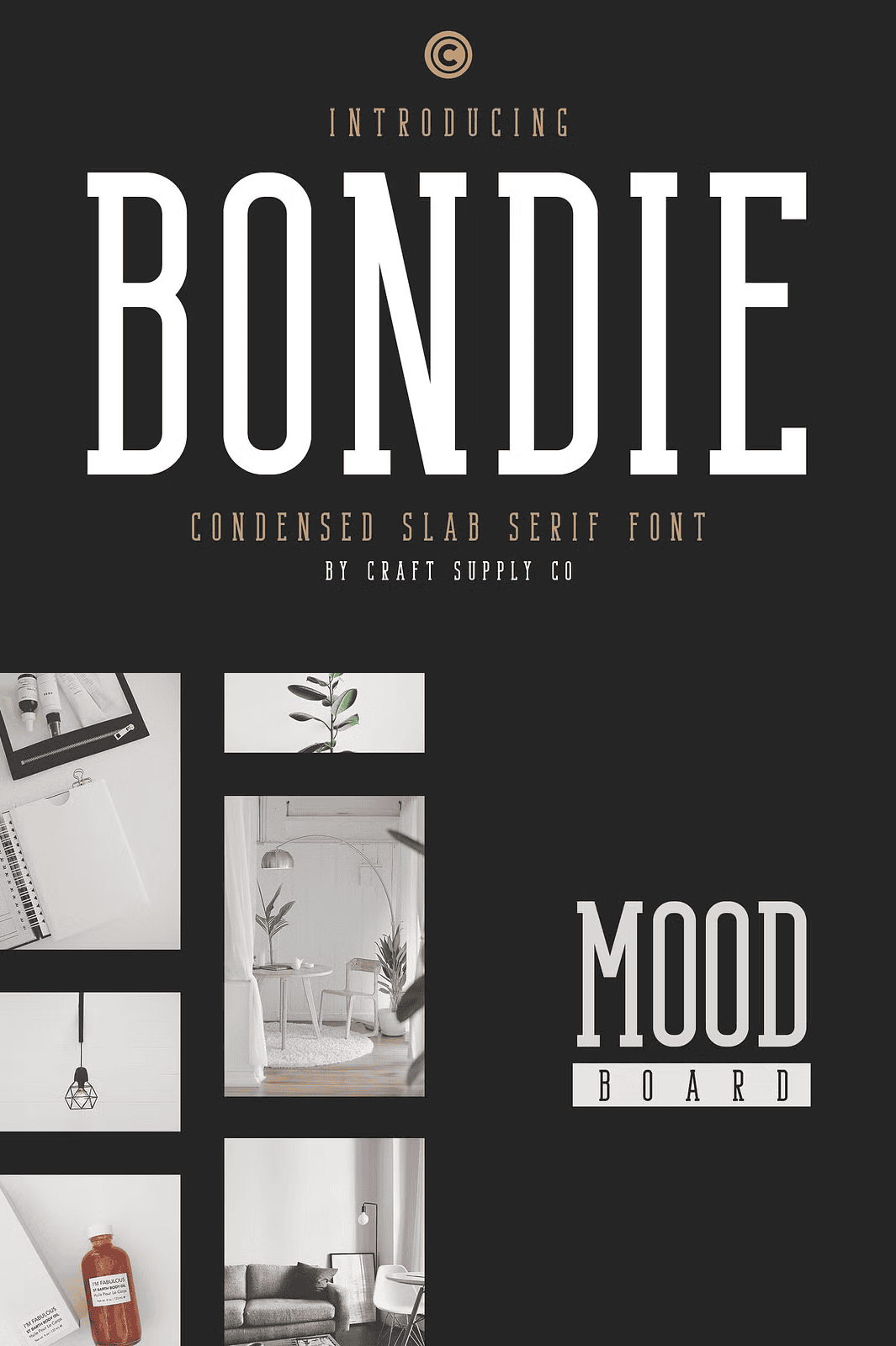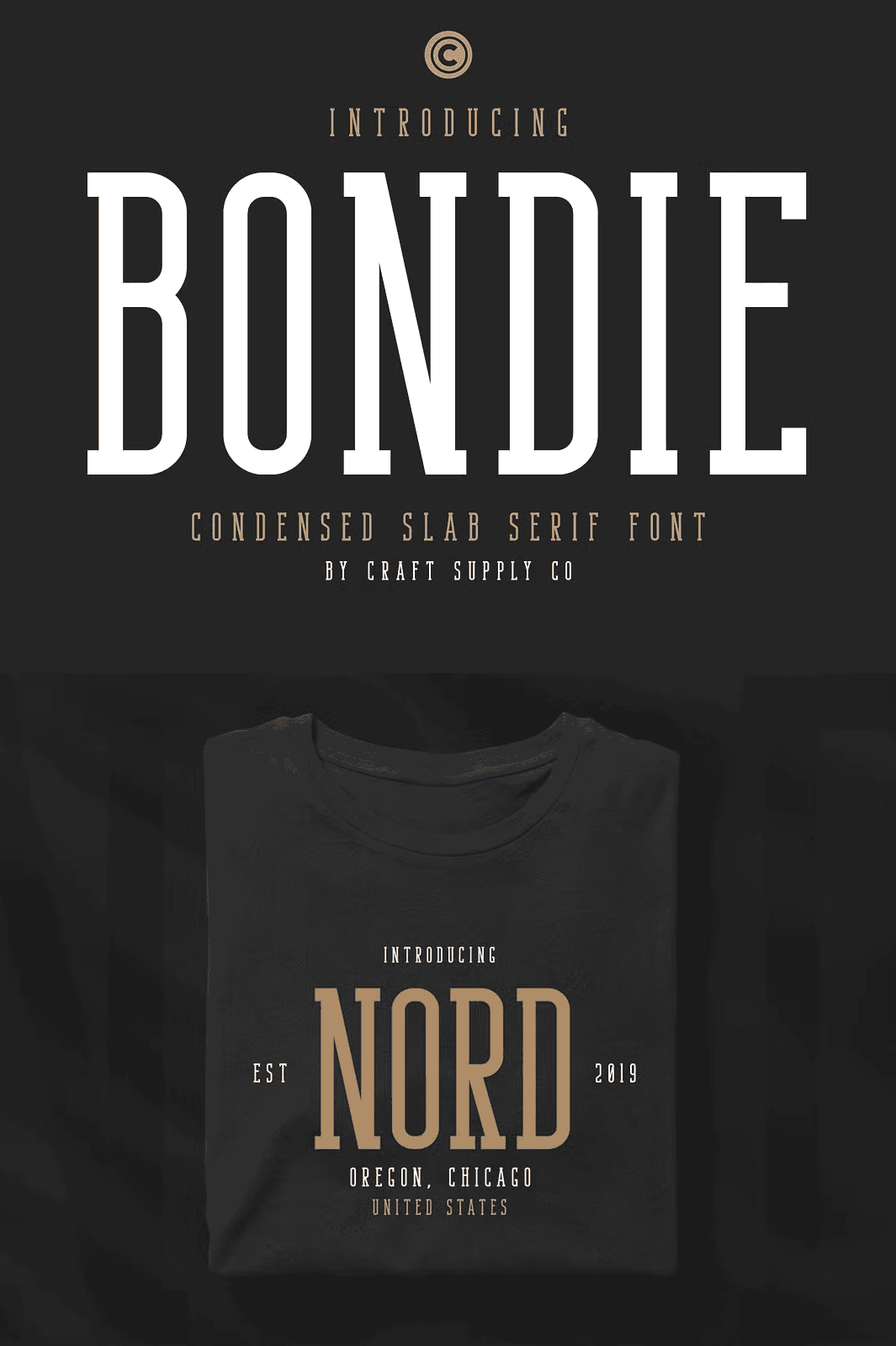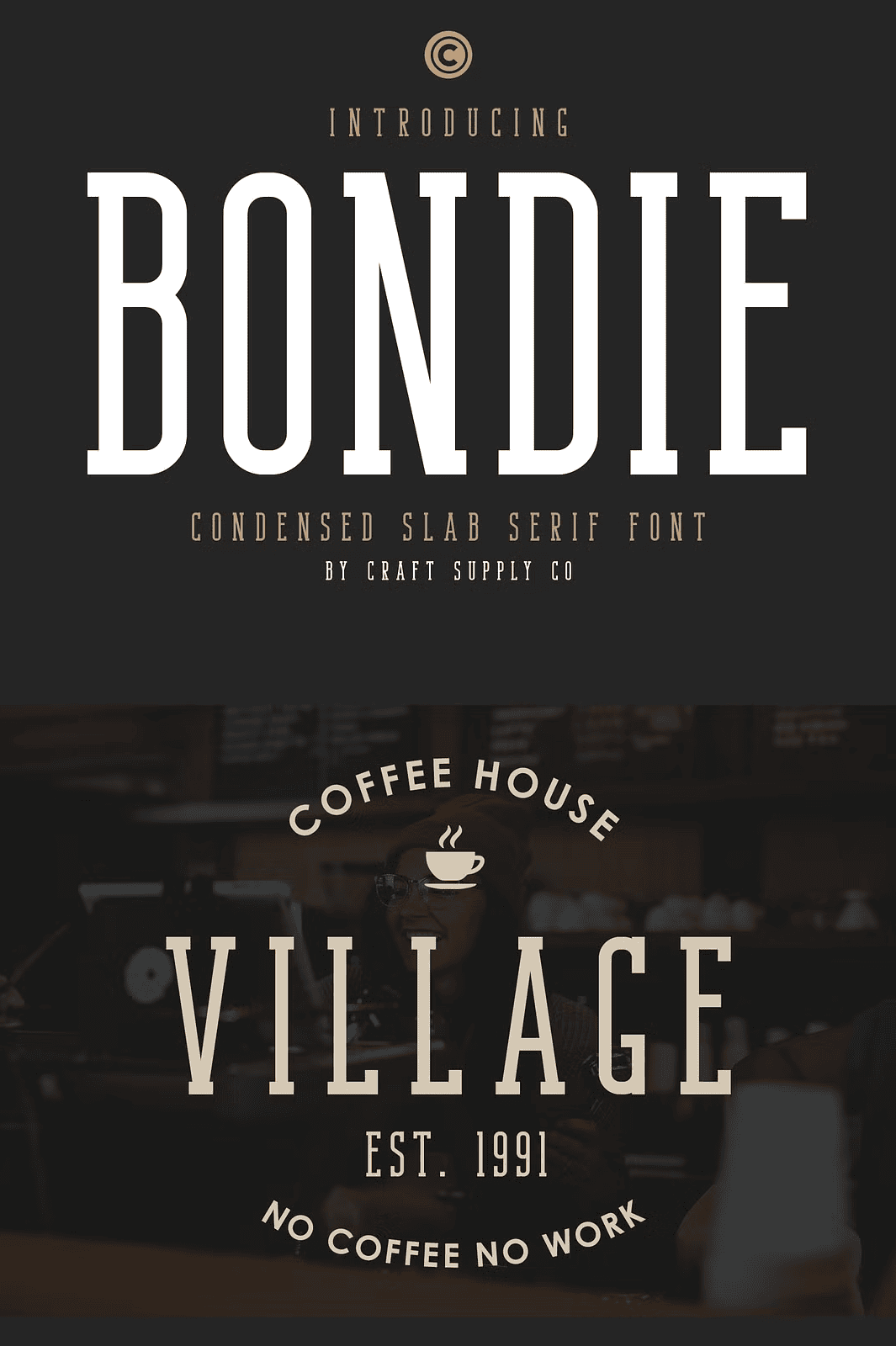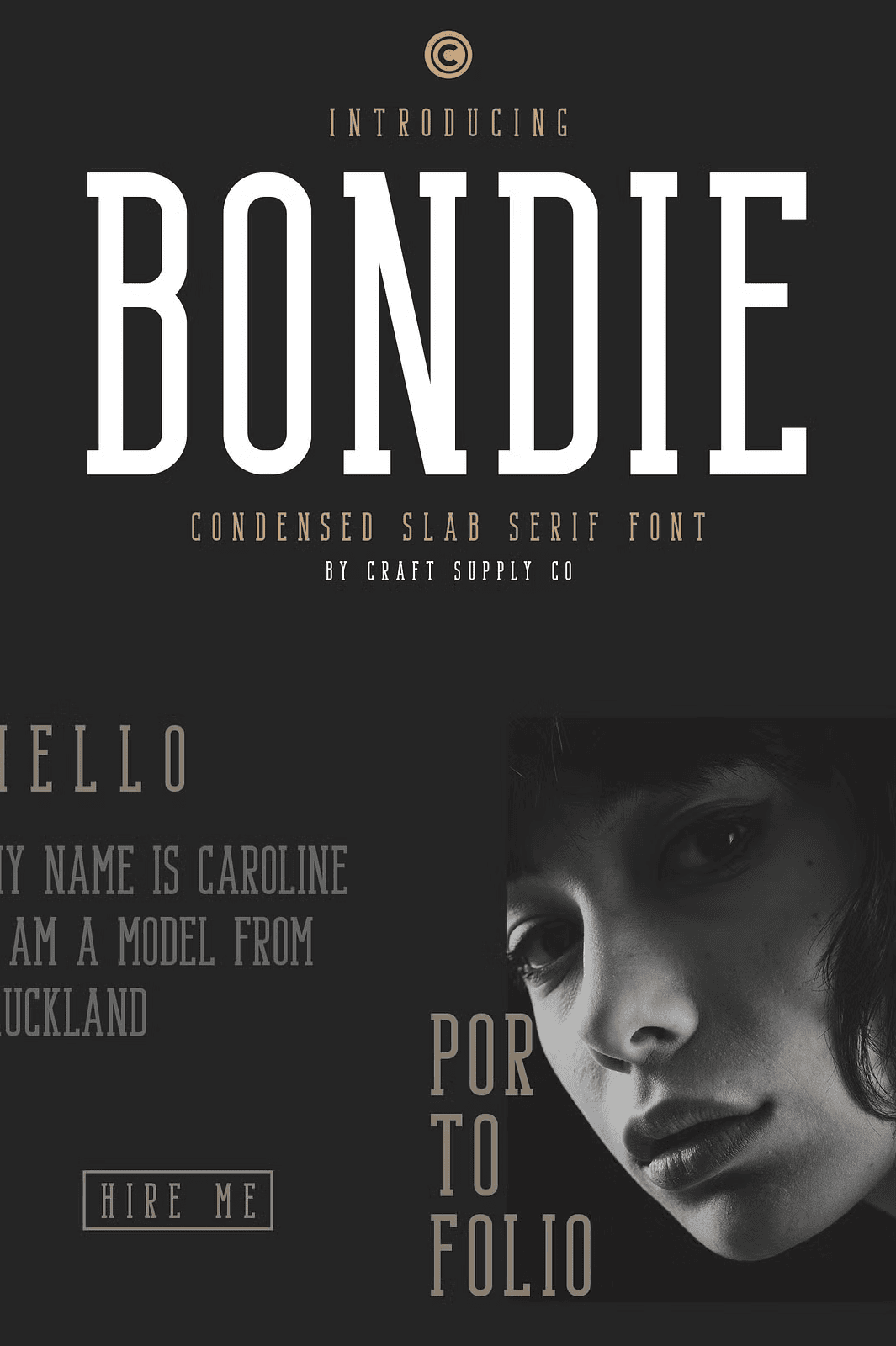
Introducing Bondie—a strikingly elegant, compact slab serif font that redefines modern typography. Crafted for designers who demand both precision and personality, Bondie combines the bold structure of a slab serif with the sleek efficiency of a condensed design. This font is your go-to tool for creating standout visuals that command attention, whether you’re building a brand identity, designing a poster, or adding flair to a DIY art piece.
Compact Powerhouse: Bold, Clean, and Built for Impact
Bondie isn’t just stylish—it’s functional. Designed with a tight, condensed structure, it maximizes visual impact while minimizing space. This makes it ideal for projects where every pixel counts: logo designs, name cards, business stationary, social media headers, and book titles. Its solid, uniform strokes convey strength and sophistication, giving your work a polished, professional edge.
Whether you’re crafting a vintage-inspired wedding invitation, designing a modern art quote, or launching a pop-culture-themed blog, Bondie delivers clean, high-contrast clarity. Its well-balanced proportions and tight kerning ensure sharp readability—even at small sizes—while maintaining a bold, distinctive presence.
Rich Feature Set for Professional-Grade Results
Bondie isn’t a one-trick pony. It’s packed with advanced typographic features that elevate your creative workflow:
- Upper and Lowercase (All Caps support)—fully designed for expressive, dynamic text
- Standard Ligatures—smooth character connections for seamless typography
- Full Numerals and Punctuation—OpenType Standard support for precise formatting
- Accents & Multilingual Characters—robust support for over 200+ characters across Latin, Cyrillic, and Greek scripts
- PUA Encoded Glyphs—access to exclusive symbols and decorative elements
Perfect for Every Creative Vision
From hand-drawn inspiration to watercolor themes, Bondie adapts effortlessly to your design aesthetic. It’s a favorite for:
- Modern envelope lettering and elegant stationery
- Artistic book covers, titles, and chapter headings
- Wedding invitations and event signage with a vintage or trendy vibe
- Digital content: blog headers, social media graphics, and website banners
- D.I.Y. craft projects, scrapbooking, and printable art
Its versatility means you’ll use Bondie across multiple projects—no need to switch fonts just because the theme changes. It works with both clean, minimalist layouts and rich, layered designs with hand-drawn textures.